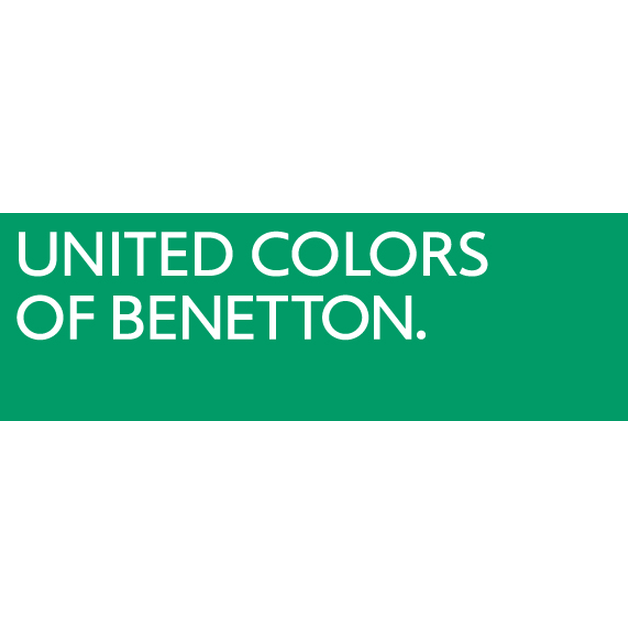
Benetton Logo Font
ApparelBenetton is an Italian fashion brand known for its colorful, vibrant clothing and accessories. The company has a reputation for social and political activism, often using its advertising campaigns to address controversial issues.
The Benetton logo above is set in Benetton Regular designed by Joe Finocchiaro for Pentagram. The Benetton Sans is very similar to Gill Sans, except for a few variations like the normalized cap proportions, the straight-leg R, and the more modern forms of j, s, and y.